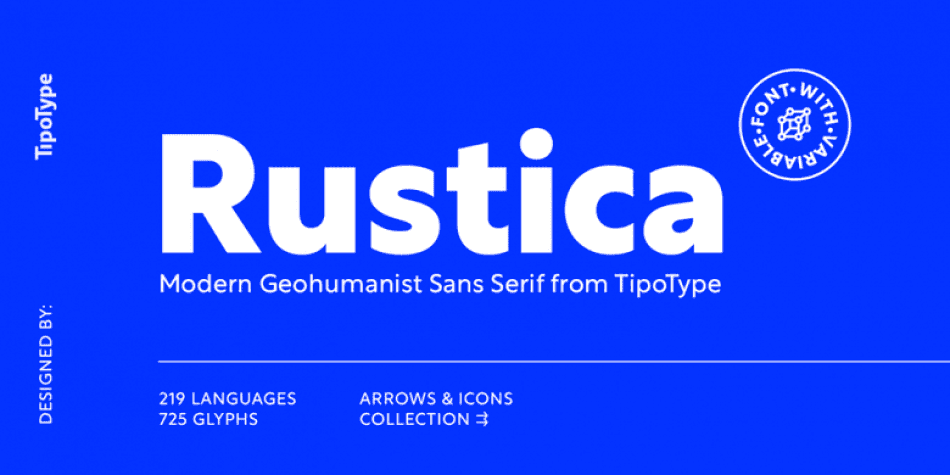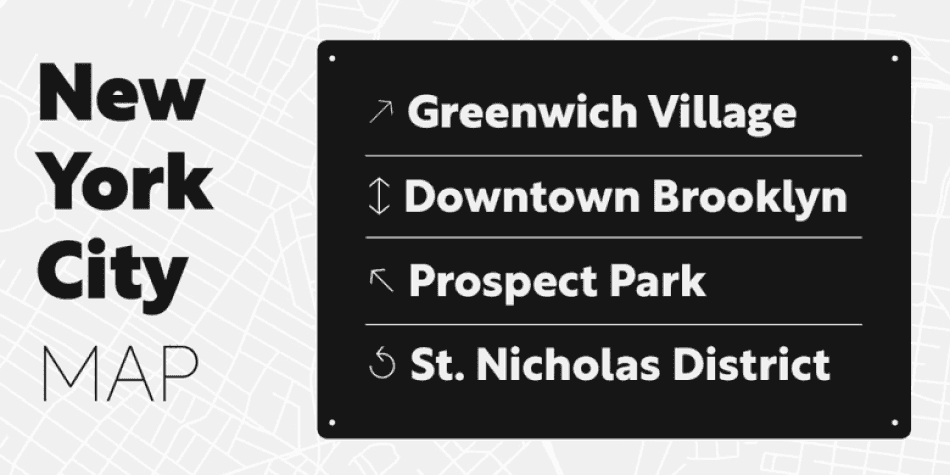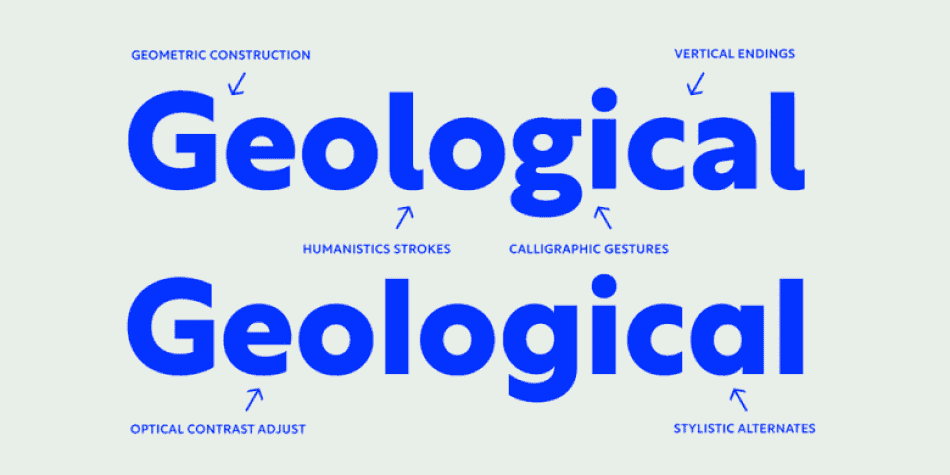
Rustica Font Family is an attempt at modernizing classic sans serif typeface styles for use in 21st-century technologies, while staying true to humanistic values without denying their significance in society and technology. GeoHumanist sans serifs.